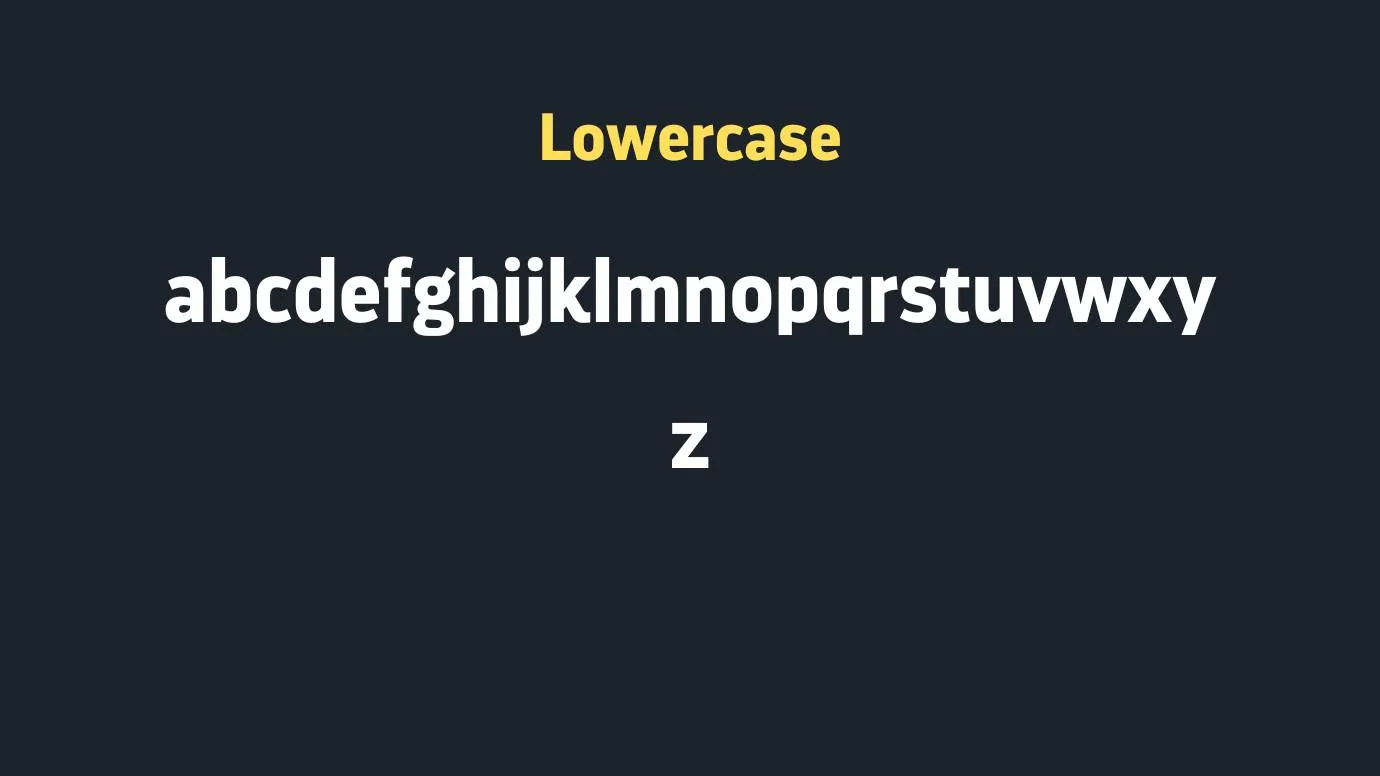
We are going to introduce Darwin Pro Font which has a stylish and cohesive look. This typography lies in the classification of the Sans Serif family of textures. The designer behind the creation of this typeface was Mendoza Vergara. Los Andes Type Font Foundry is the original publisher of this texture.
Uppercase and Lowercase Letters
This outstanding texture contains all uppercase as well as lowercase letters or characters. It has more than 180 advanced and gorgeous characters including numbers, uppercase letters, Lowercase characters, and a few special characters.
This modern-look typography comes with outstanding glyphs along with 1024 units per em. The glyphs of this texture increase its worth among all graphic designers and manufacturers. Due to its bold look, this font is great for individual text design purposes without any issues.
Font Details
Name | Darwin Pro Font |
Designer | Mendoza Vergara |
Foundry | Los Andes Type |
Type | Sans Serif |
Darwin Pro Font Family (Includes 14 Typeface)
- Darwin Pro Bold
- Darwin Pro Thin
- Darwin Pro Thin Italic
- Darwin Pro Black
- Darwin Pro Light
- Darwin Pro Semi Bold
- Darwin Pro Extra Light
- Darwin Pro Bold Italic
- Darwin Pro Light Italic
- Darwin Pro Regular
- Darwin Pro Regular Italic
- Darwin Pro Extra Light Italic
- Darwin Pro Black Italic
- Darwin Pro Semi Bold Italic
Usage Guidelines for Darwin Pro Font
This modern font is well-suitable for a variety of projects like different types of ebook cover designs, digital books, wall murals designs, and modern magazine designing purposes. This texture is a great option for use in social media post designs, postcard designs, and so on. Designers could also pick this gorgeous typography for t-shirt, caps, and pants printing styles and designs.
This eye-catching font is well effective for making emblems designs, letterhead covers designs and stylish name design purposes. You can utilize this unique texture for creating outstanding brochure layout designs. It is best to make pairing this interesting font with mont font. for more useful features.
The kind of this reputable texture is sans serif and Mendoza Vergara is a famous typographic designer in the font market who create it.